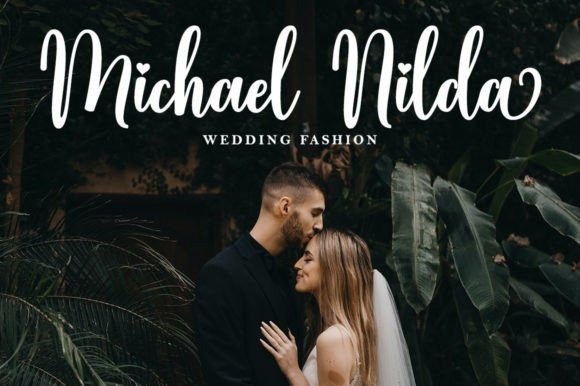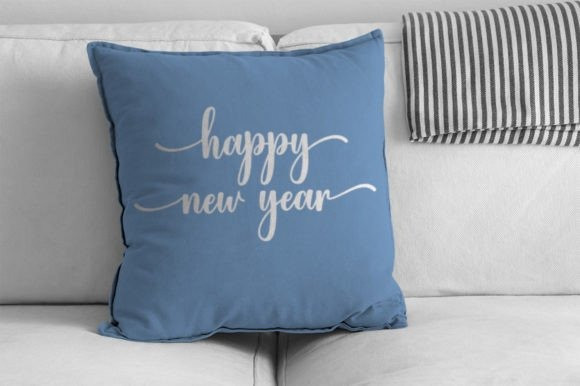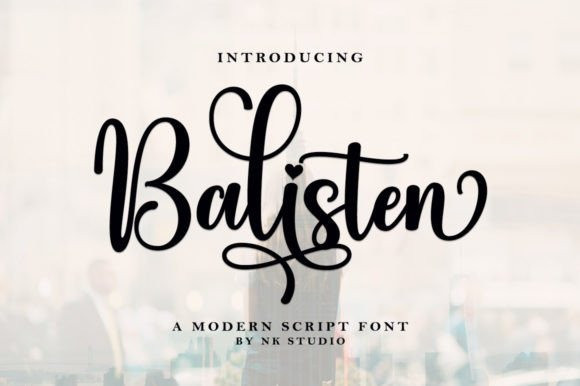
Balisten Font
Balisten Calligraphy Font is a lovely and delicate script font that exudes elegance and class. This font was particularly crafted for those who need a beautiful and refreshing look to their designs.